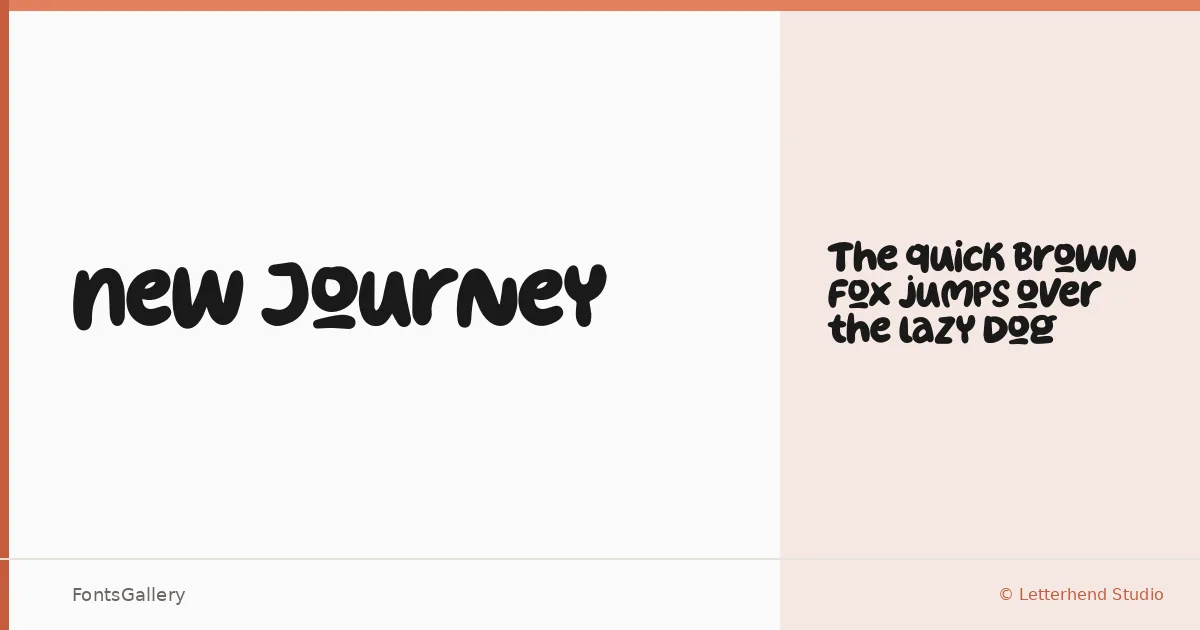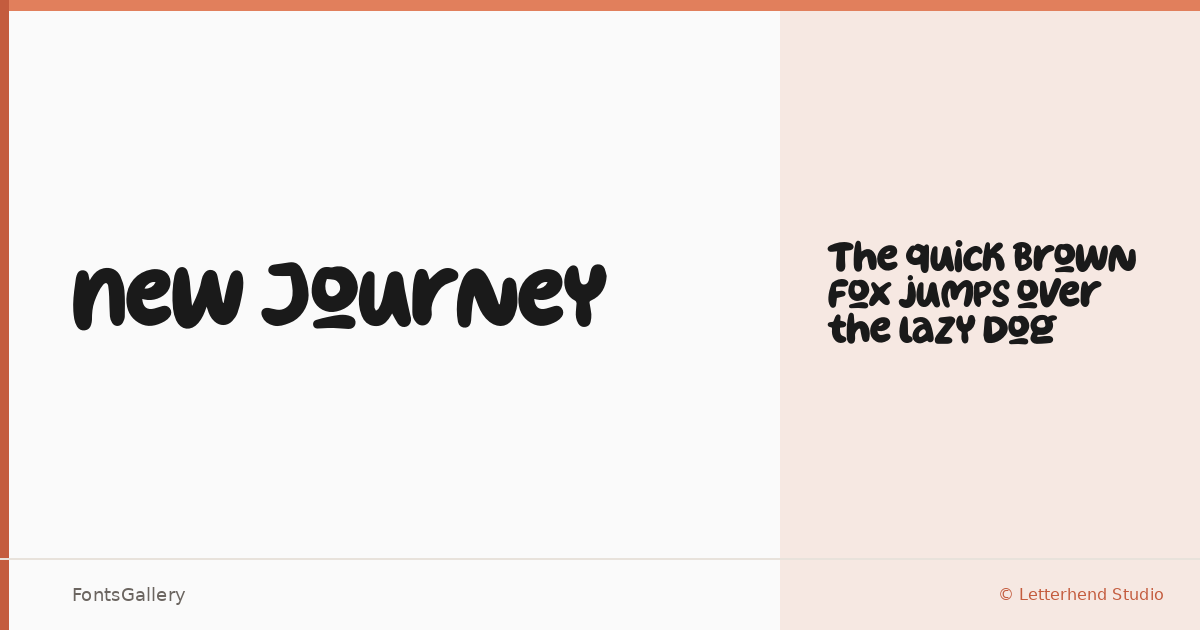
About New Journey Font
There is a confident looseness to this script — the kind of handwritten energy that feels authored rather than accidental. New Journey comes from Letterhend Studio and arrives as a single Regular weight in OTF format, keeping the offering focused and intentional.
The handwritten character leans bold and playful, with a whimsical quality that gives letterforms a sense of motion and personality. It is the sort of script that reads as genuinely hand-drawn rather than mechanically constructed — loose without being sloppy, expressive without losing legibility. A single Regular style means the face works through scale and placement rather than weight variation.
The mood suits branding projects, poster headlines, t-shirt graphics, children's book covers, and social media visuals where a warm, human touch is the point. For contrast, it pairs well against the clean geometry of Helvetica, the editorial calm of Canela or ABC Arizona, the humanist structure of Asap, or the classical weight of Adobe Caslon Pro — any of those will give the script room to lead.